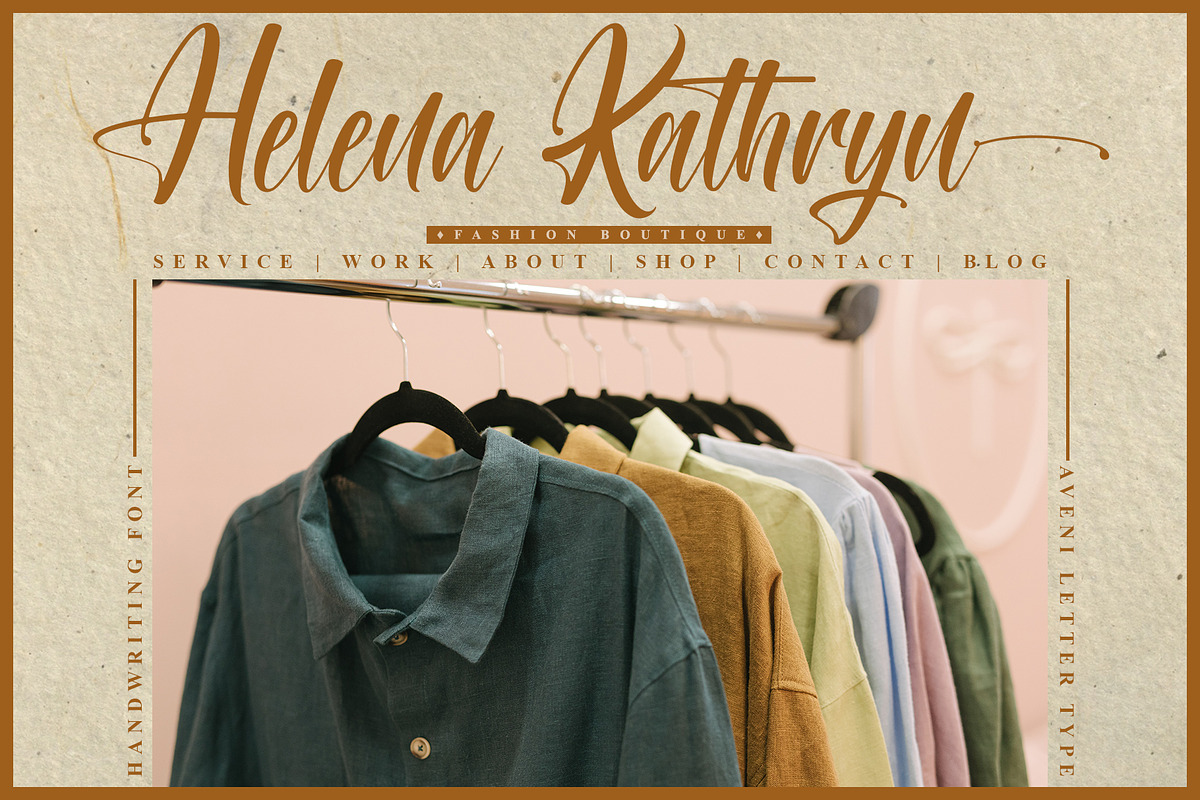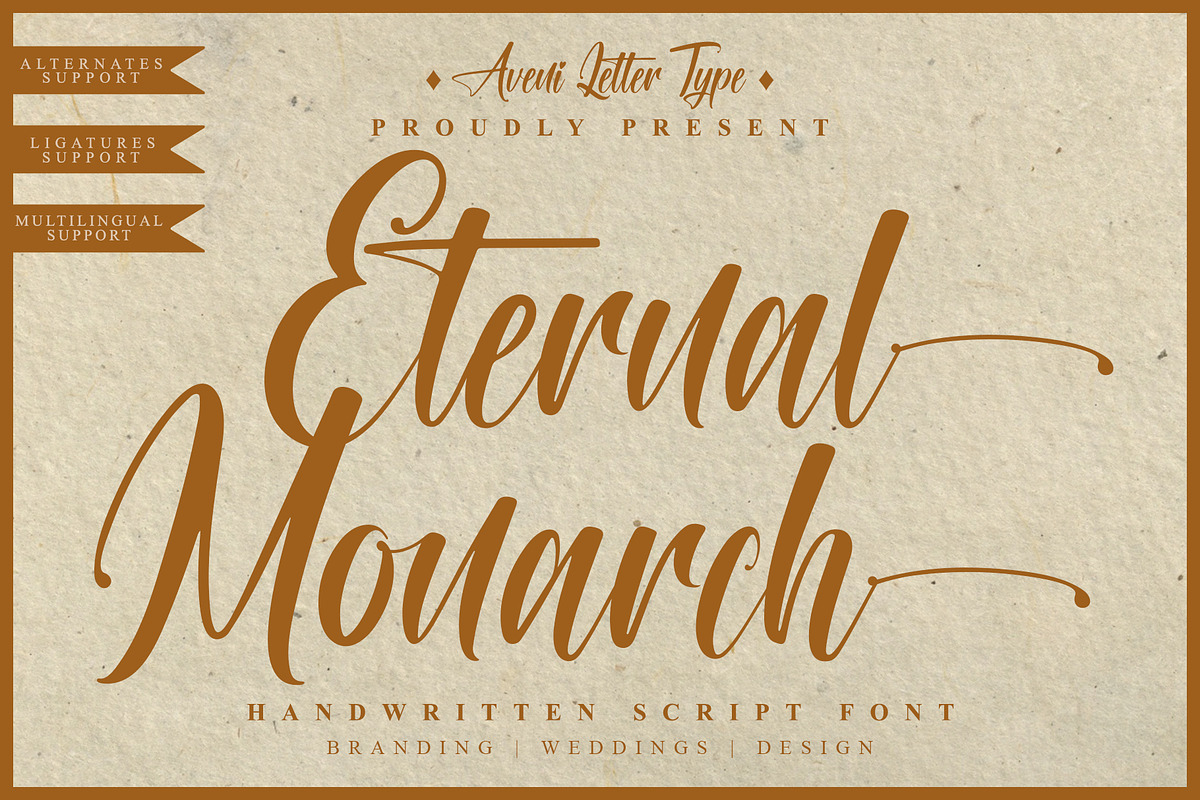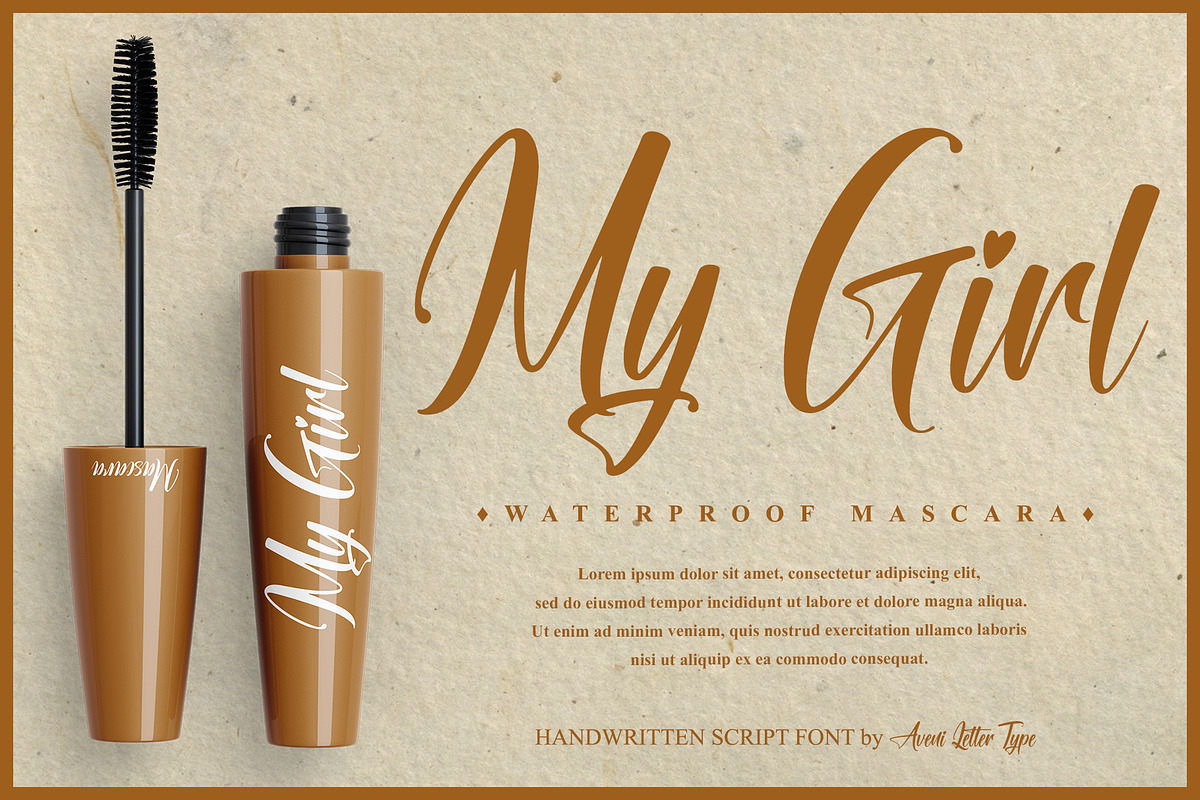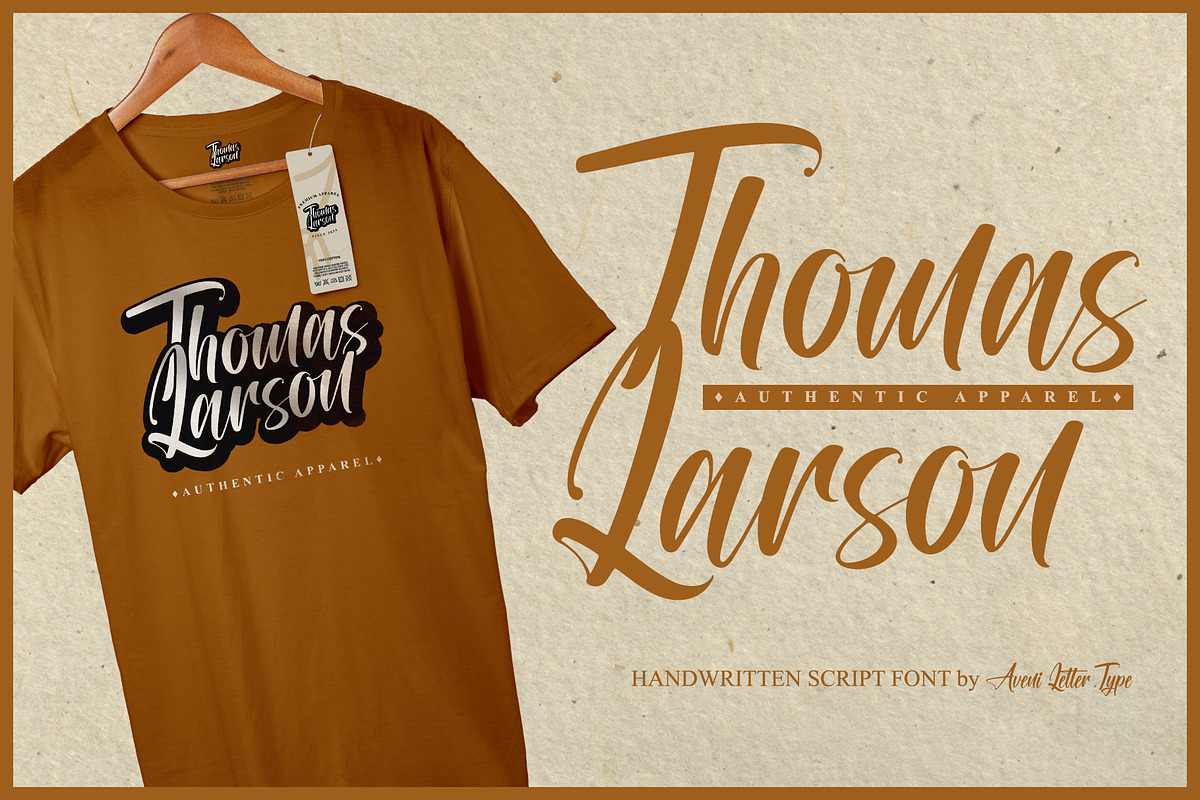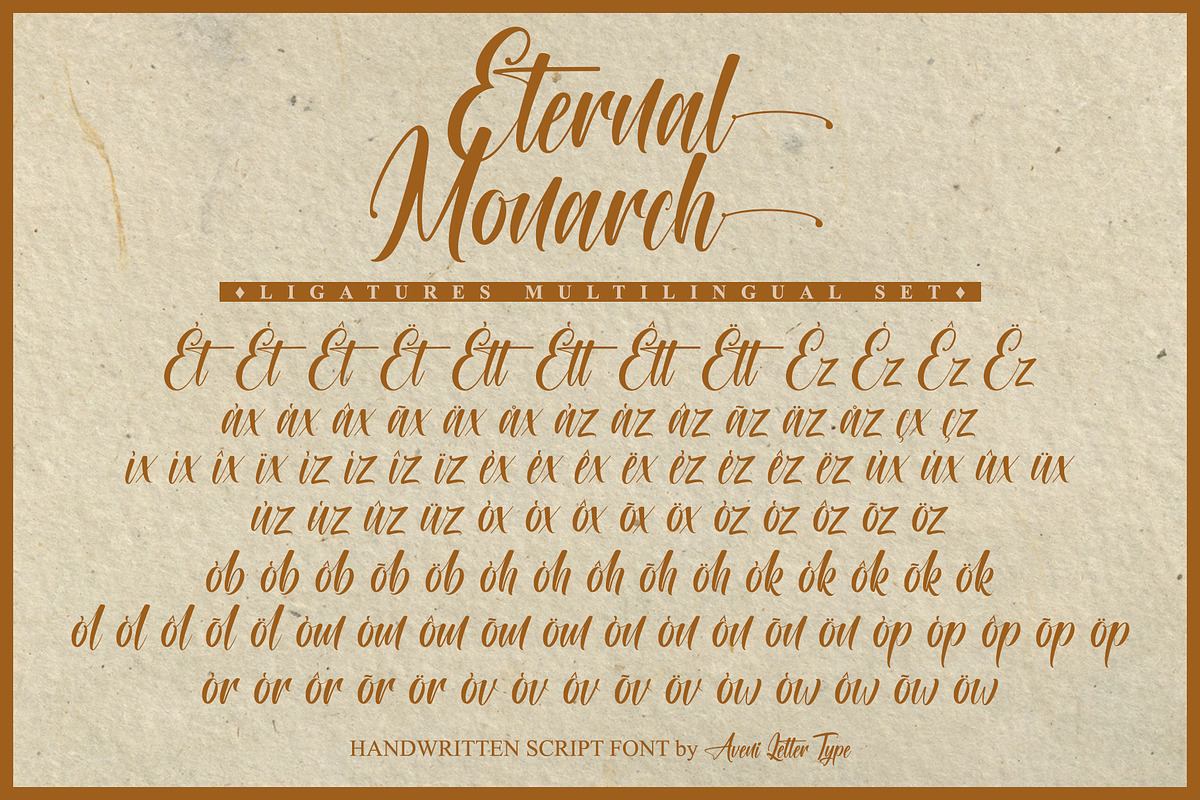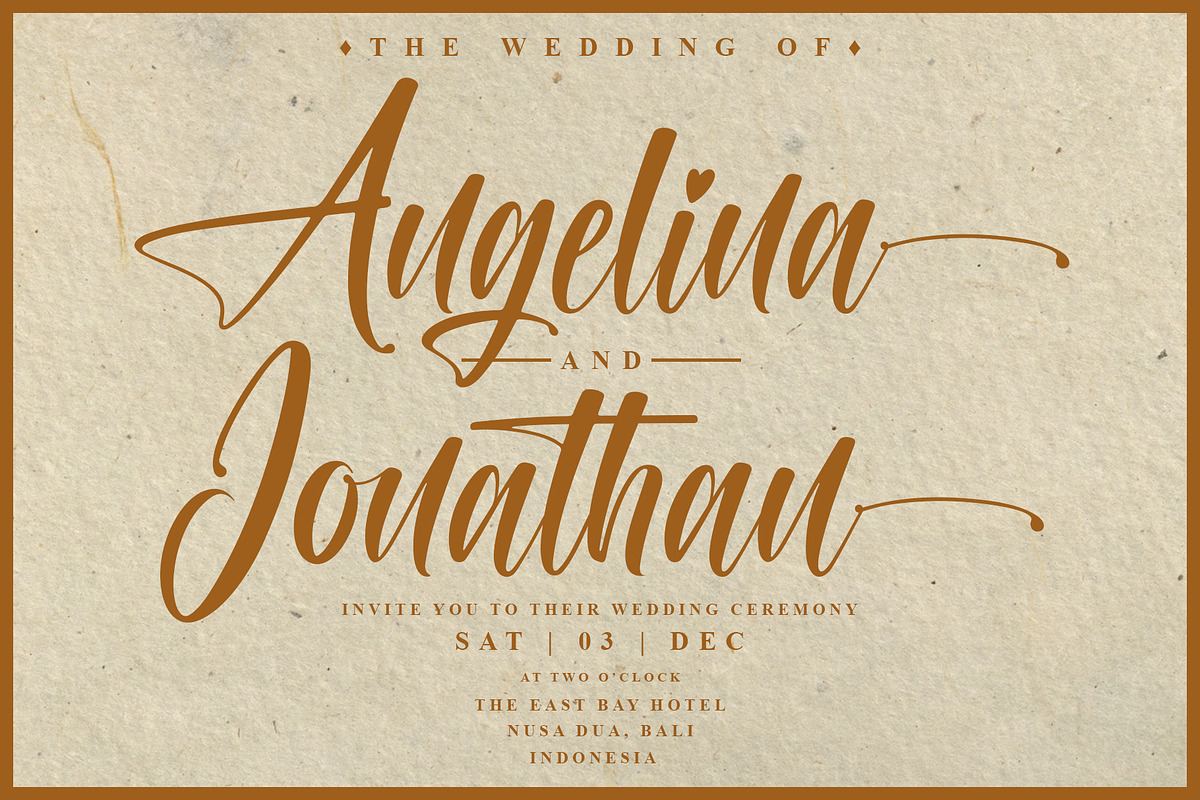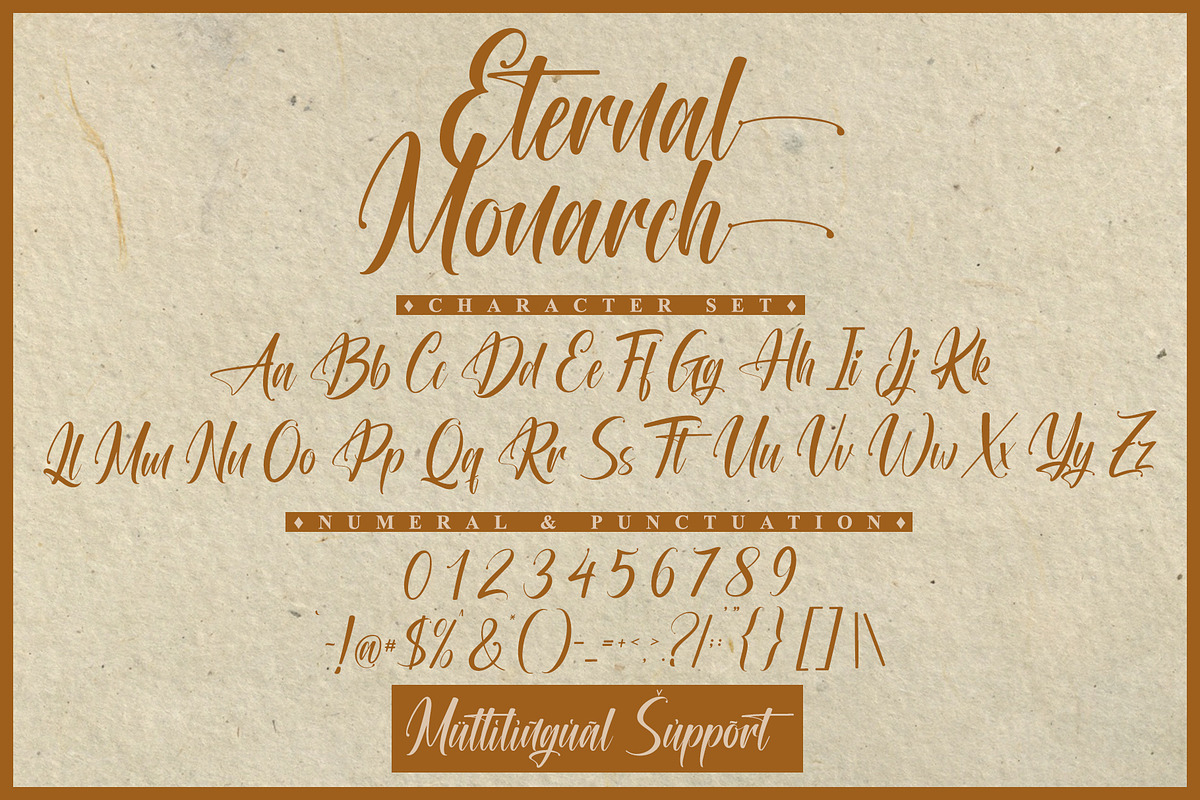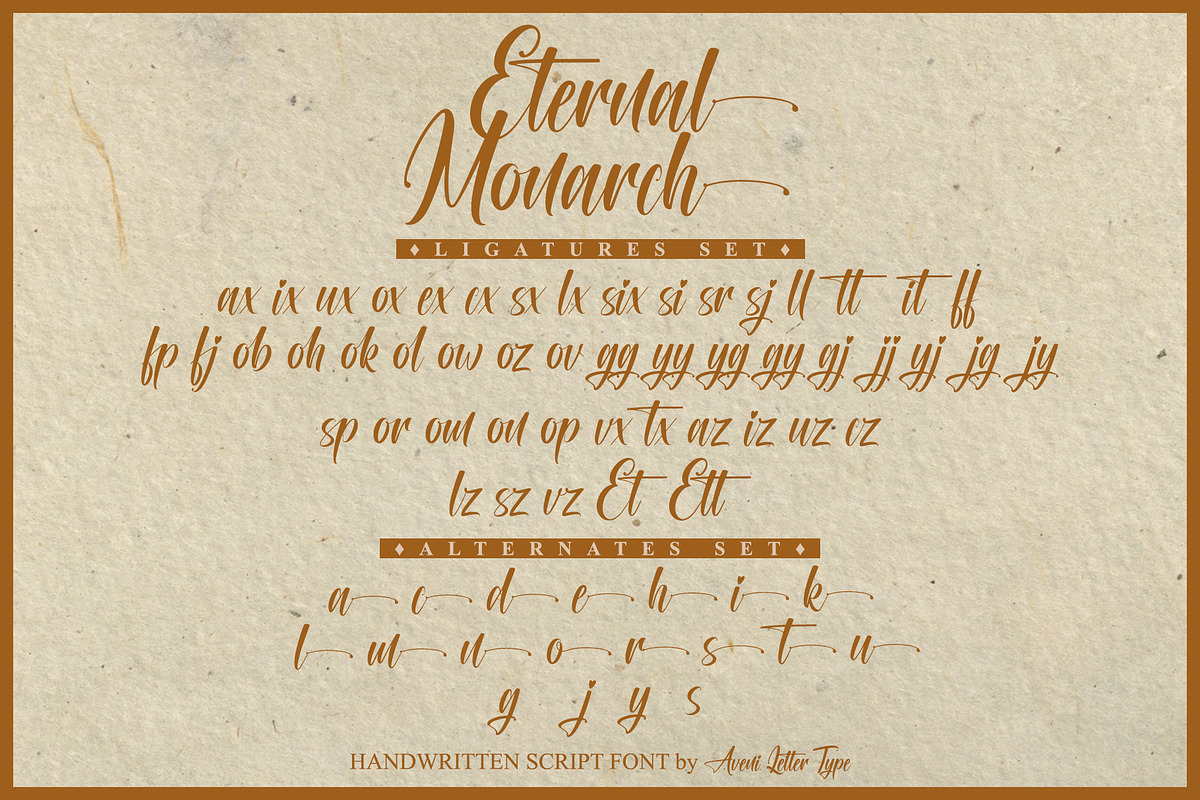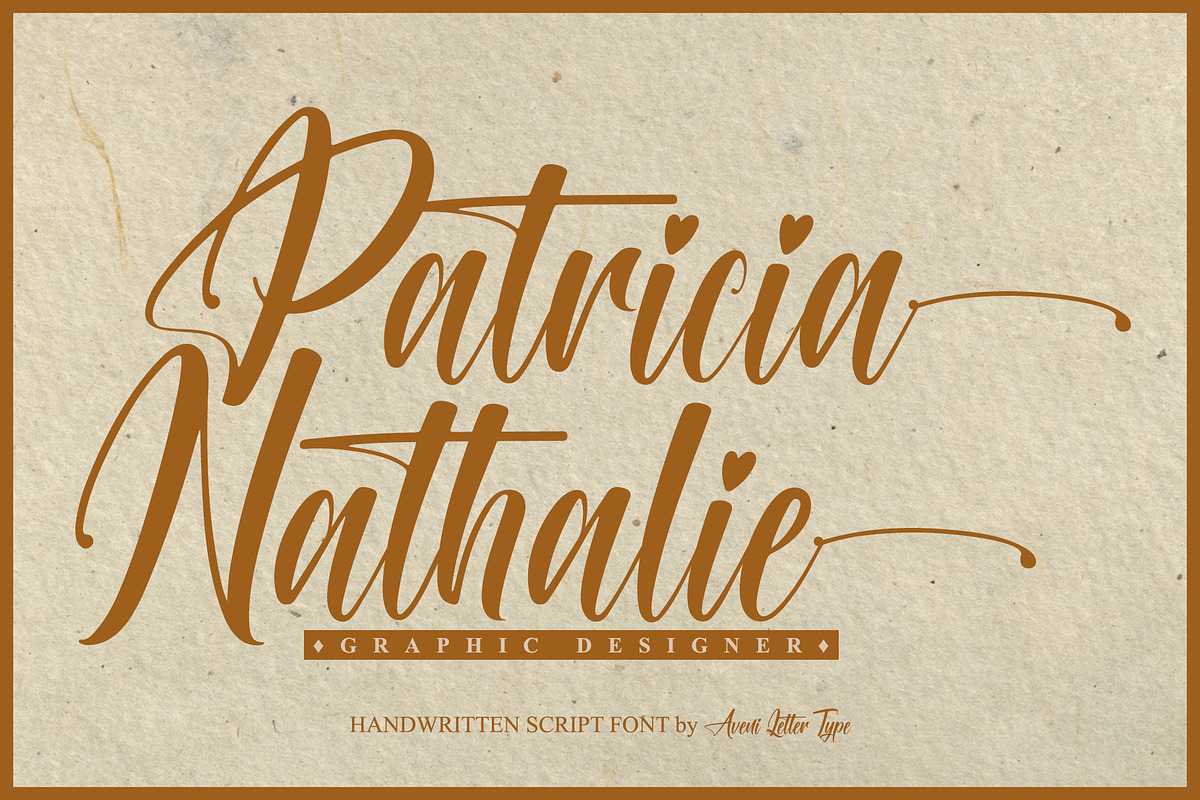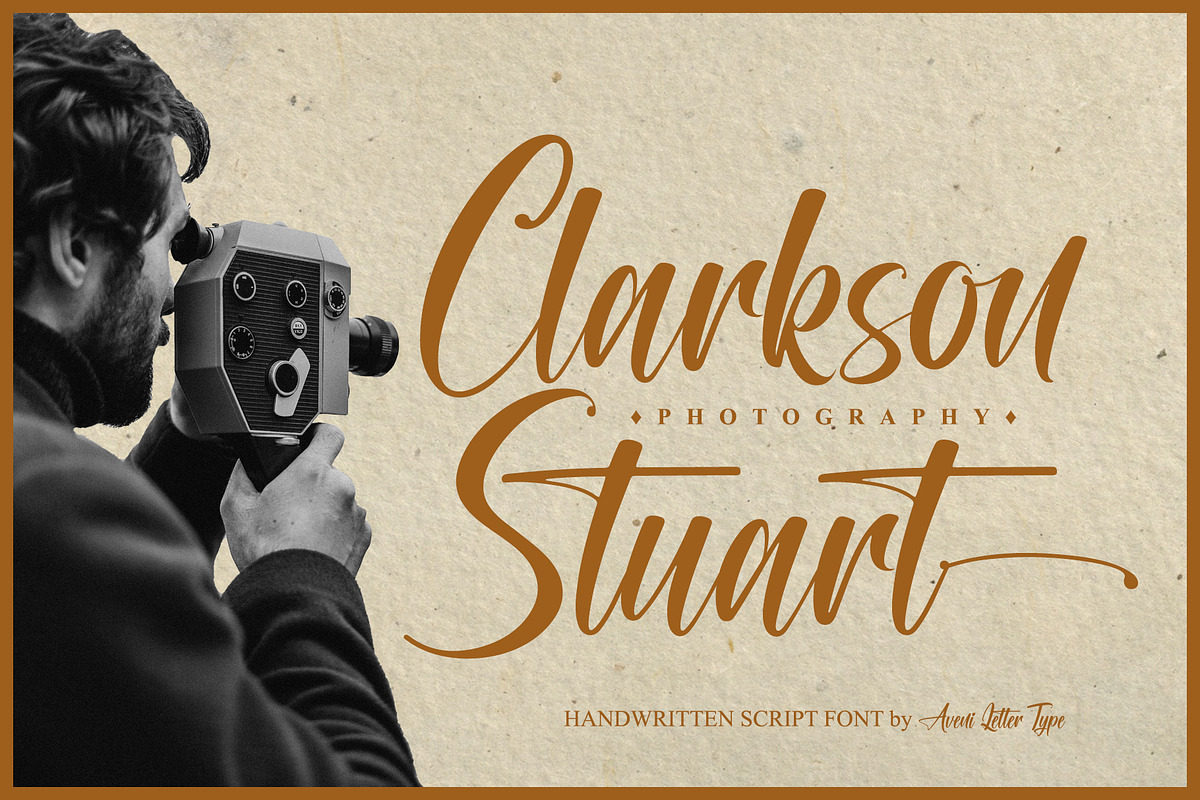
Eternal Monarch | Handwritten
Hi Guys, my name is Eternal Monarch, I was born with a handwriting font, but still is an elegant style and very neat kerning. This font will look great in many projects like it, project as business cards, cosmetic branding, wedding invitations, product packaging, headers, posters, merchandise, apparel branding, social media & greeting cards, and so much more!
Eternal Monarch Feature :